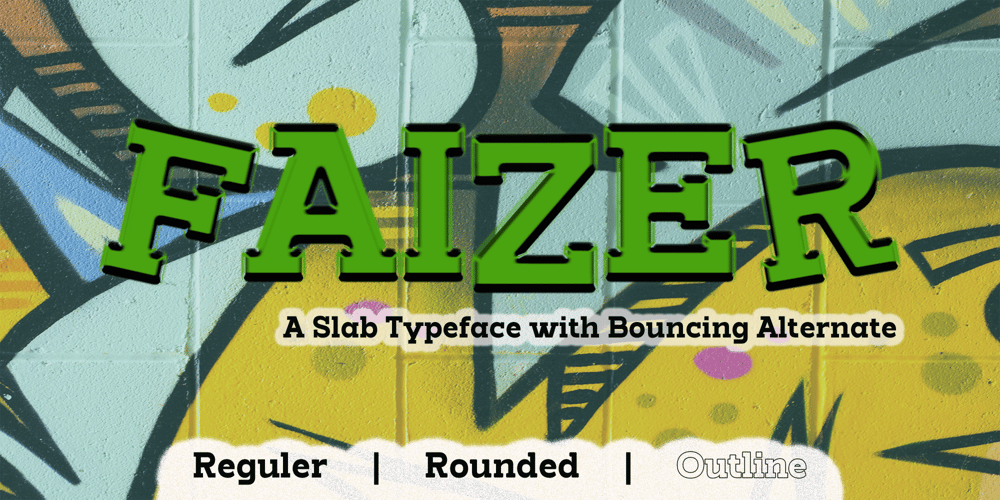
Faizer
Faizer font
Faizer Font Family was designed by Sidik Sidik and published by Differentialtype. Faizer contains 6 styles and family package options. Faizer is a slab serif typeface font with a display theme. Great for presentations, billboard fonts, logo fonts, and more. Faizer has 3 styles, regular, rounded, and outline. The faizer also features alternates with bouncing styles, as well as alternate lowercase and alternate numbers with in-circle styles.